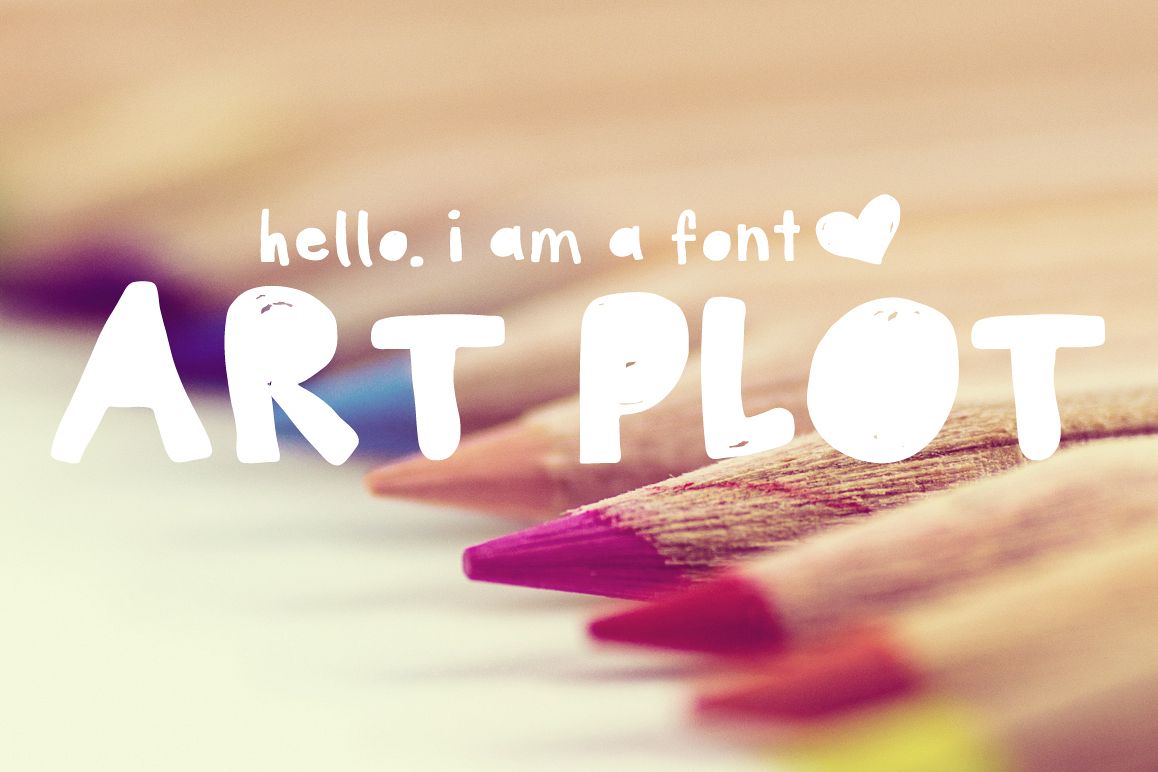
Art Plot Bold Hand Drawn Font
ArtPlot
Artsy font with a hand drawn finish and a poster-like design. Great for quotes, ads or as a display font in any project!
- Uppercase and lowercase